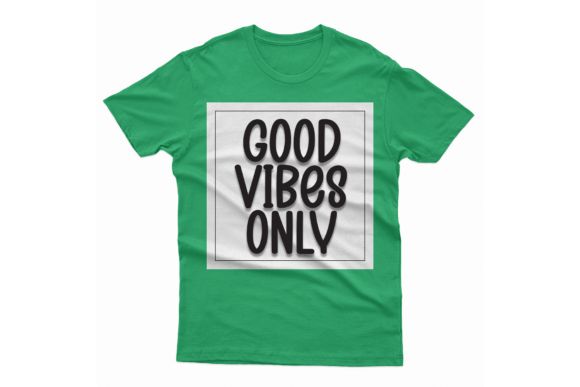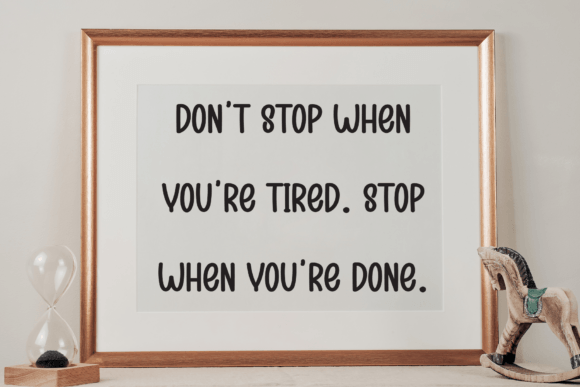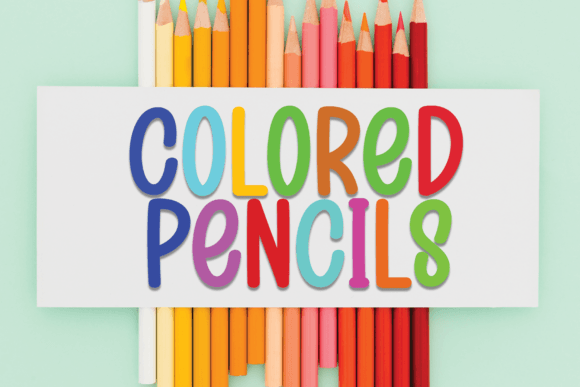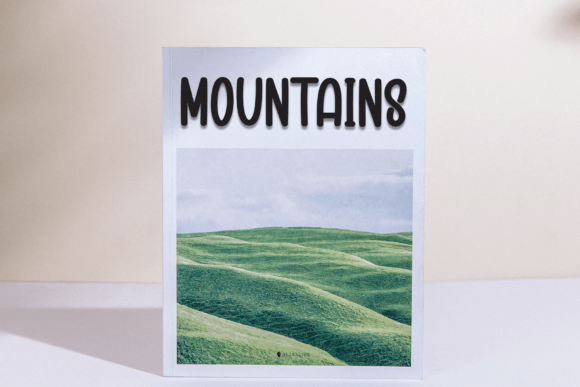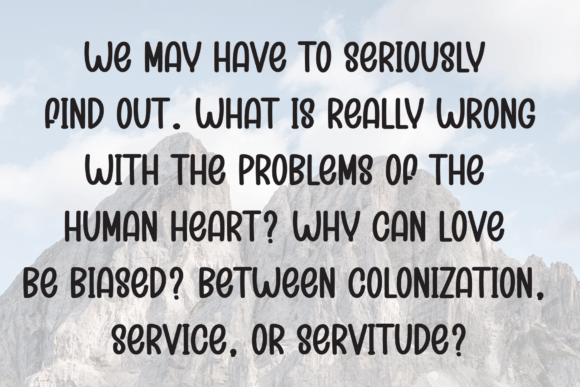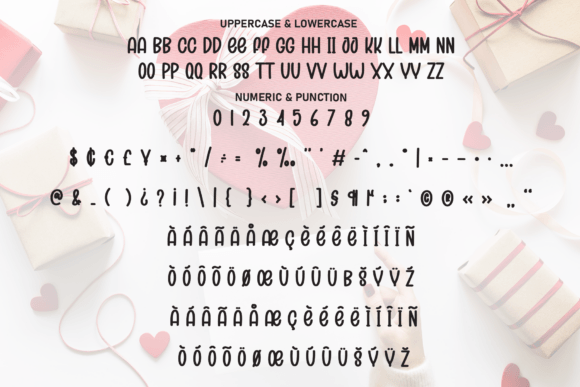
Introduction to Present Valentine Font
Have you ever been brainstorming ideas for a creative project, and the perfect font just pops into your mind? For designers, that “aha” moment is what makes all the difference. Whether you’re working on a logo, poster, or social media graphic, the right font can elevate your design and make it truly unforgettable. And that’s exactly what the Present Valentine Font does.
This lively and full of personality display handwritten font brings the charm of natural handwriting to bold, eye-catching designs. With its playful curves and casual style, it’s perfect for a wide range of creative projects, from logos and packaging to quotes and social media graphics. And the best part? It’s available for free download, making it a valuable resource for designers looking to add a personal touch to their work.
With its transparent background and high quality design, the Present Valentine Font is a must-have for any creative project. Whether you’re a seasoned designer or just starting out, this font is sure to bring a friendly, handcrafted feel to your work.
Key Features of Present Valentine Font
- High-quality design resource ideal for creative projects and greeting cards
- Comes in 1 font style with 4 weights (Light, Regular, Bold, Extra Bold)
- Perfect for Valentine’s Day-themed projects, weddings, and romantic occasions
Honest Review: Present Valentine Font
I recently had the chance to work with the Present Valentine Font, and I must say it’s a unique addition to my design library. The font’s whimsical feel and elegant lines make it perfect for creative projects that need a touch of romance.
One of the standout features of this font is its transparent background, which makes it super easy to use as a design resource. I’ve been able to customize it to fit my project’s color scheme with ease. Additionally, the high quality of the font ensures that it looks great on various devices and screens.
Here are some of the things that work well with the Present Valentine Font:
- Unique and elegant design
- Easy to customize with a transparent background
- High quality for a smooth visual experience
However, I do have to mention a few limitations:
- Only available in a limited number of font styles
- May not be suitable for projects that require a bold or modern look
Overall, I’m impressed with the Present Valentine Font, and I would definitely recommend it to designers looking for a unique and elegant design resource for their creative projects.
The Present Valentine Font is perfect for romantic and creative projects, such as Valentine’s Day cards, wedding invitations, and social media posts. The font is also great for design projects that require a touch of elegance and sophistication.